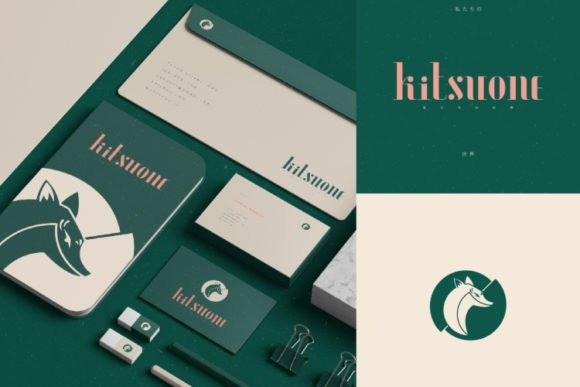
Kogarashi Font
Kogarashi is a fun and creative display font. Whimsical and a bit quirky, this font will brighten up each of your designs. Add it confidently to your projects, and you will love the results.